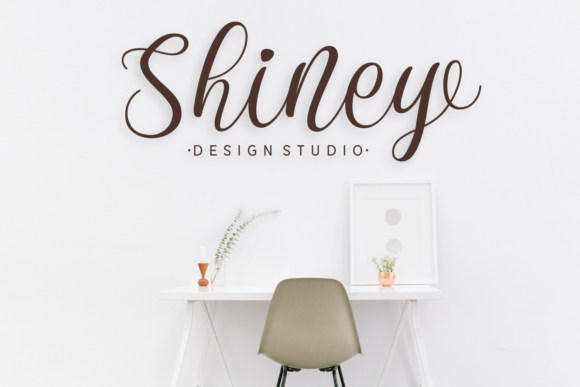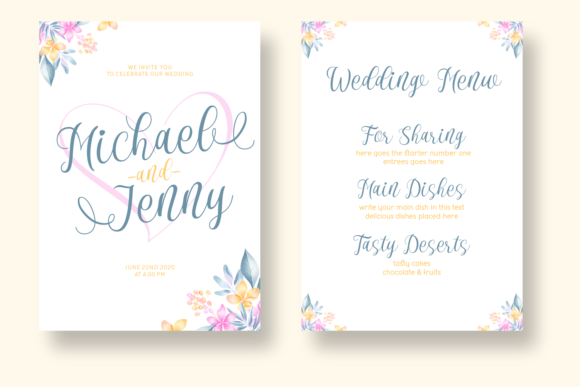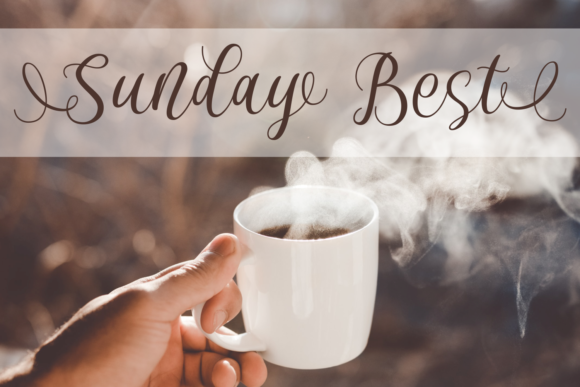
Shanita Font
About Shanita Font
Shanita is a beautiful, modern handwritten font that will give your next designs a stylish look.
This font can be used in a wide variety of applications from logos, wedding invitations to book covers and more.